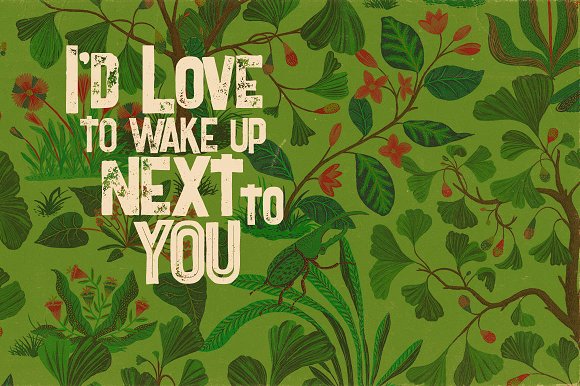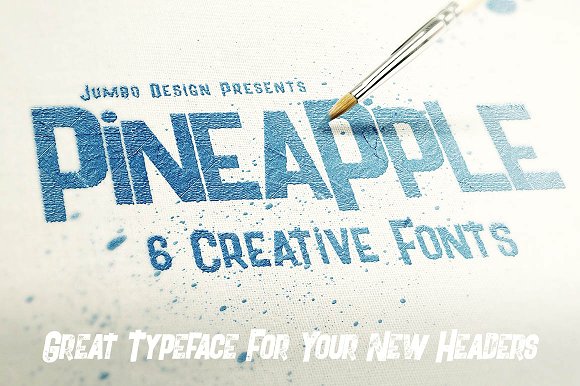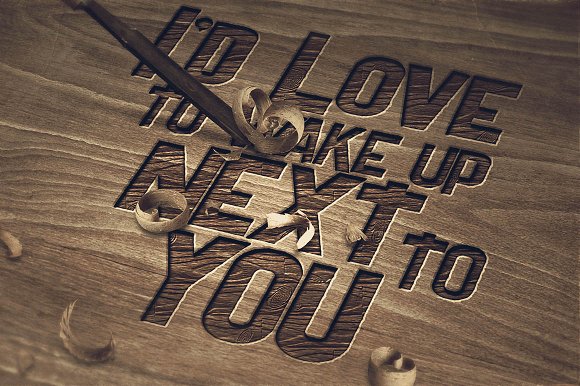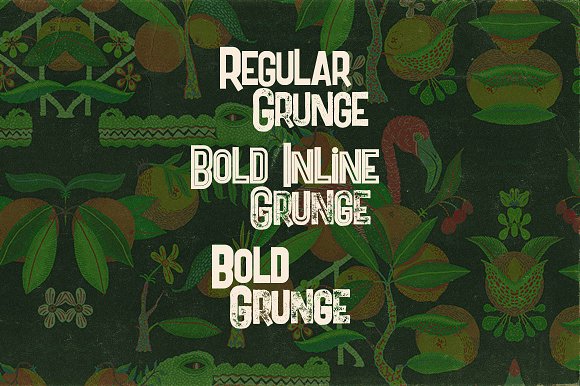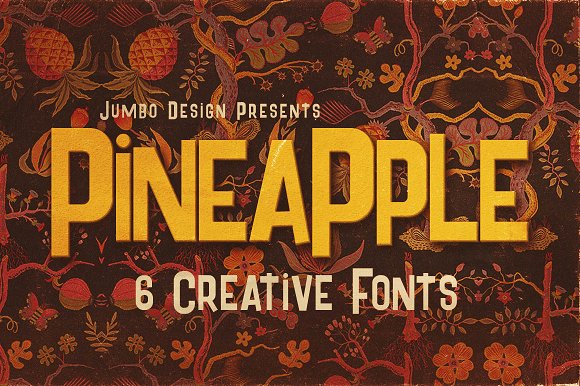
Pineapple – Funny Style Font
Unique and funny style custom font with 6 styles: regular and grunge, bold inline and bold inline grunge, bold and bold grunge.